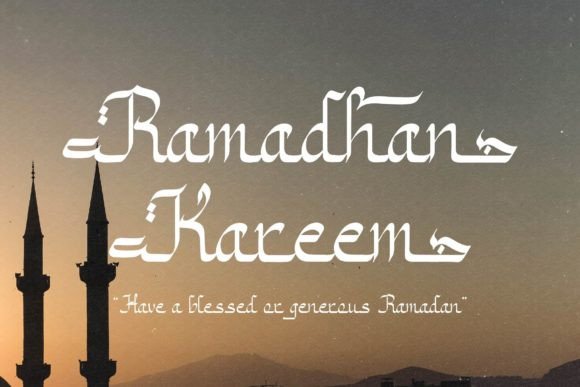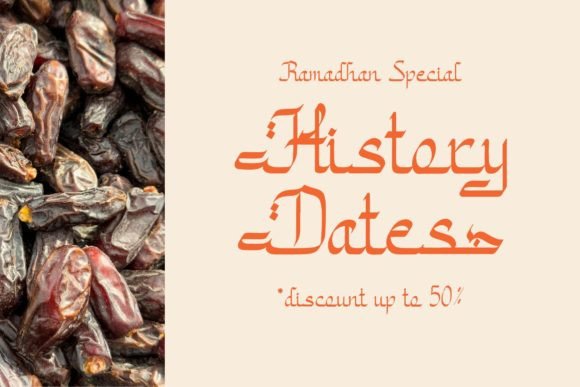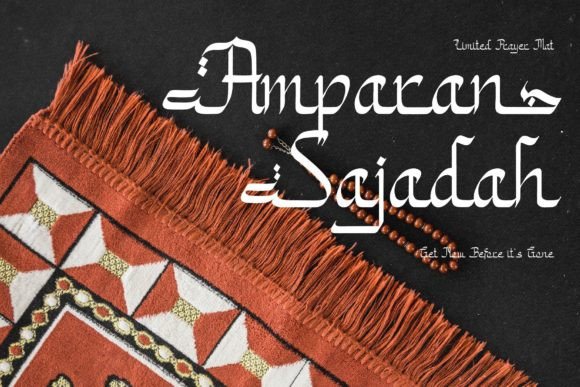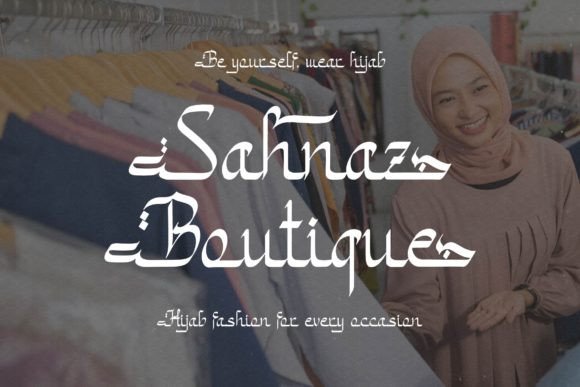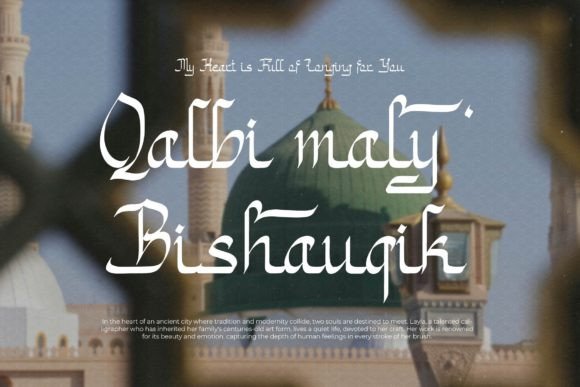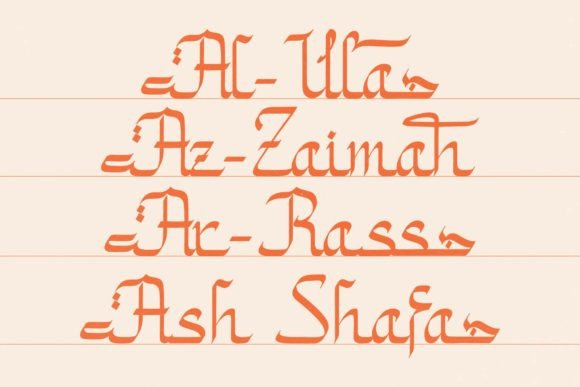
Introduction to Mahyatti Font
Mahyatti is an Arabic-style font that features elegant, flowing curves and decorative elements.
It’s perfect for adding a traditional and artistic touch to your designs, such as invitations, posters, or any creative project that needs an Arabic-inspired look The font is both beautiful and easy to read, making it versatile for various uses.
Key Features of Mahyatti Font
Why Choose Mahyatti Font?